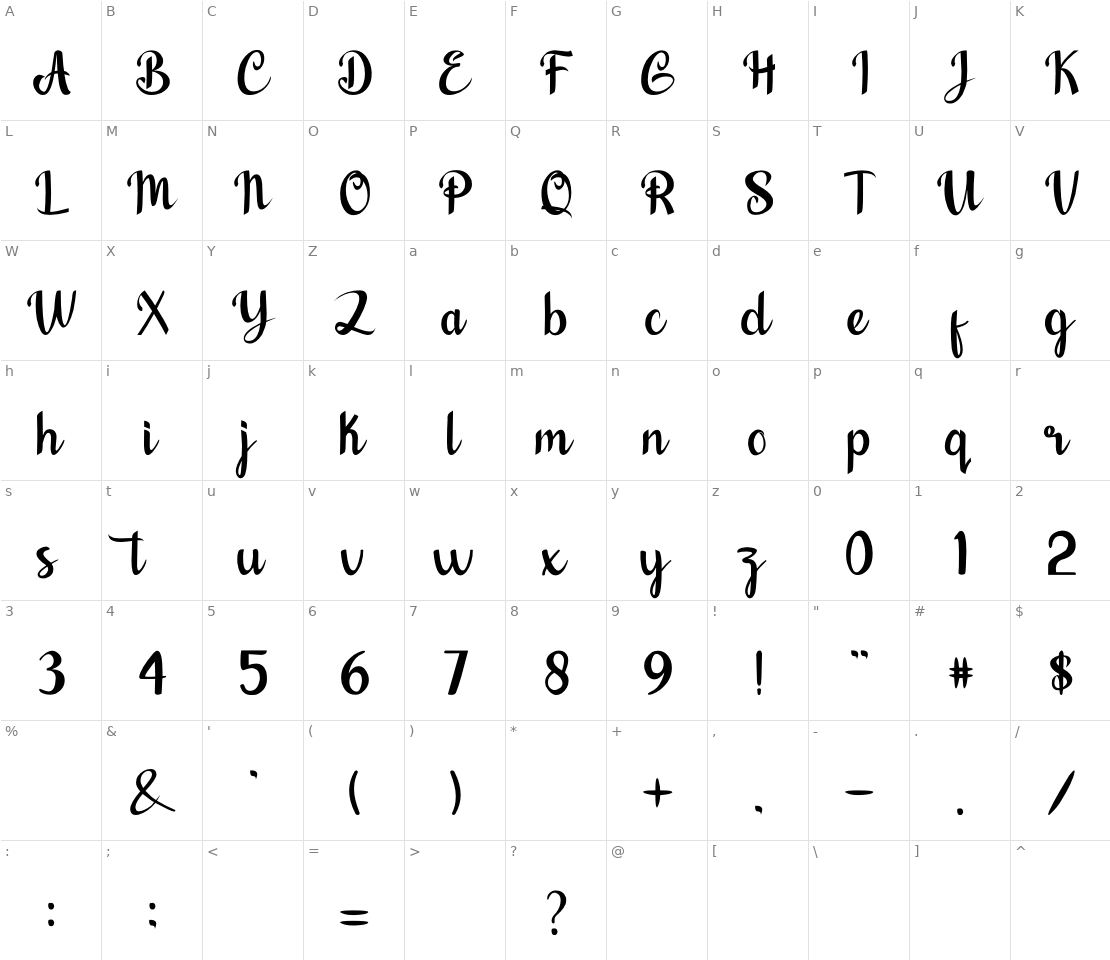
Nalytha
Nalytha is a flowing casual script from MJB Letters with smooth, connected letterforms that feel both feminine and effortlessly elegant. The strokes have a natural rhythm to them, decorative enough to catch the eye but restrained enough to stay readable at headline sizes. A good pick for invitations, beauty branding, packaging, and editorial headers where you want something graceful without being overly formal.